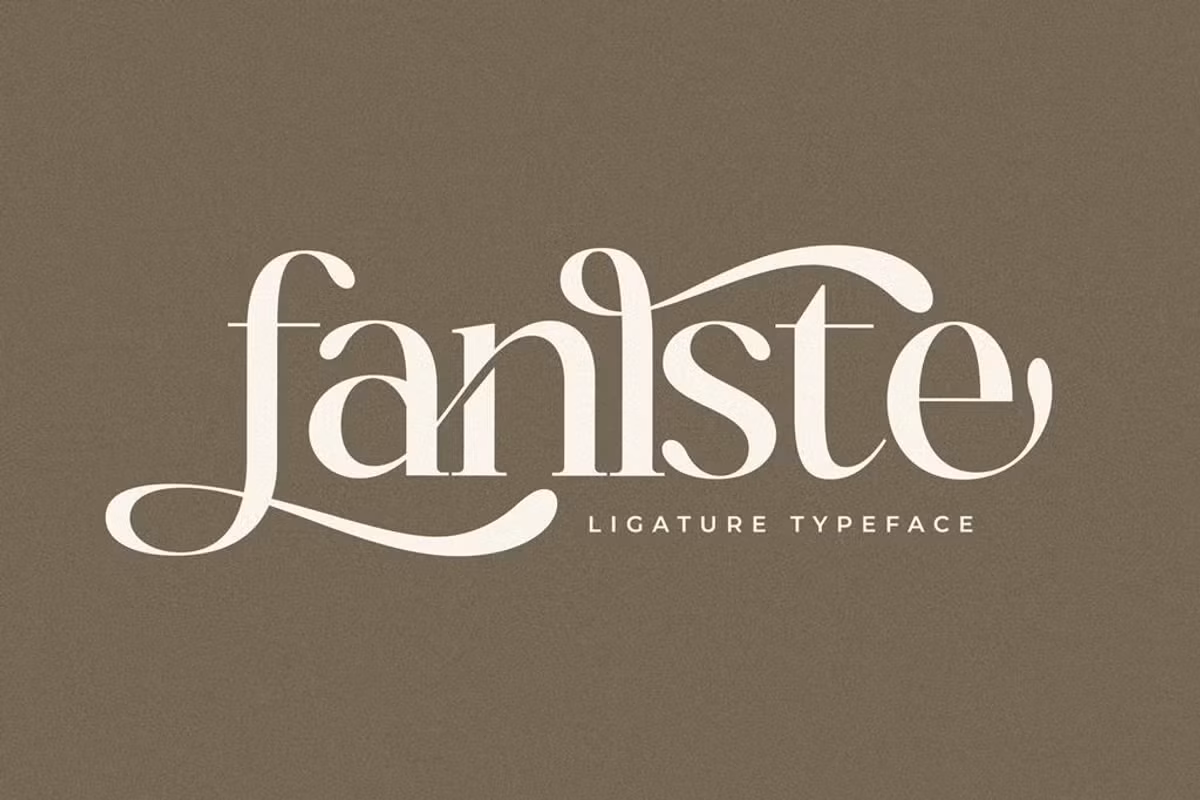
Fanlste Ligature Typeface Font Free Download is a sophisticated and artistic serif font featuring elegant ligatures that enhance visual flow and style. Perfect for luxury branding, editorial designs, logos, and wedding invitations, this typeface adds a refined and contemporary feel to any project. Please note that you must purchase this font for commercial use, but it is available as a free download for testing purposes. Elevate your creative work with Fanlste Ligature Typeface Font Free Download and experience the perfect balance of fashion-forward design and timeless serif structure.